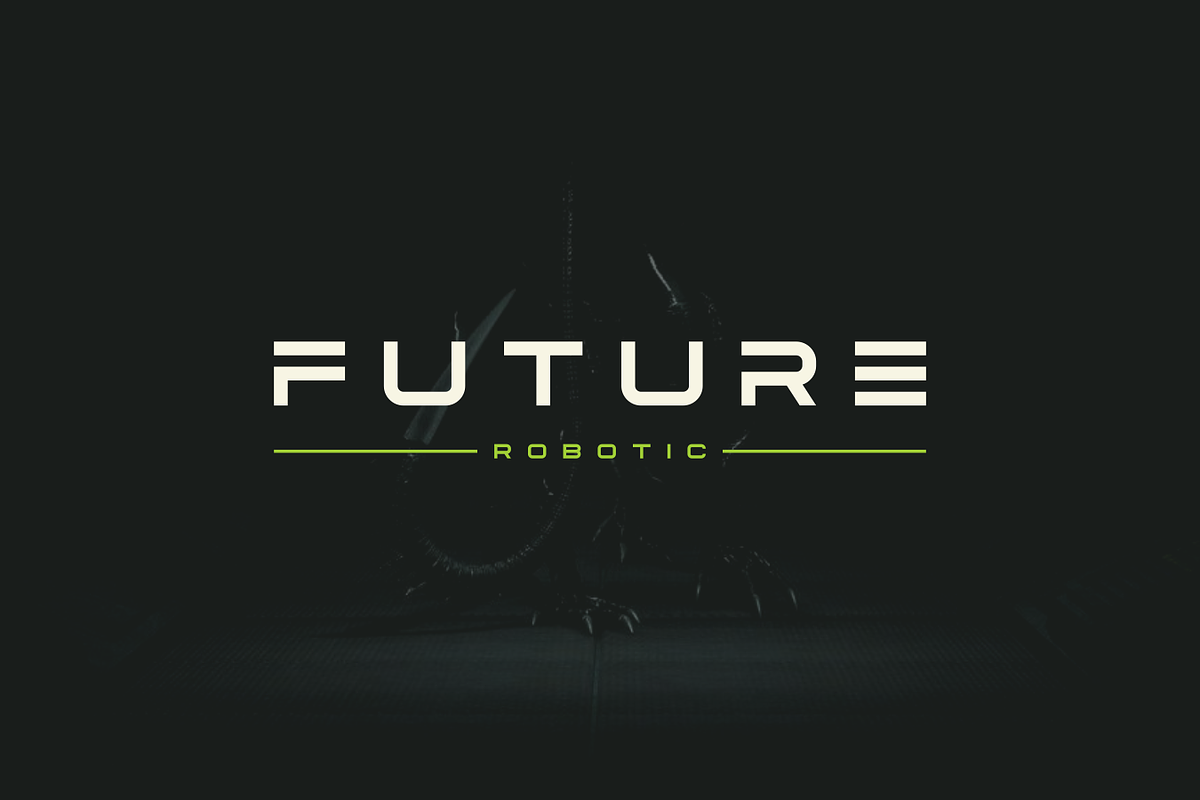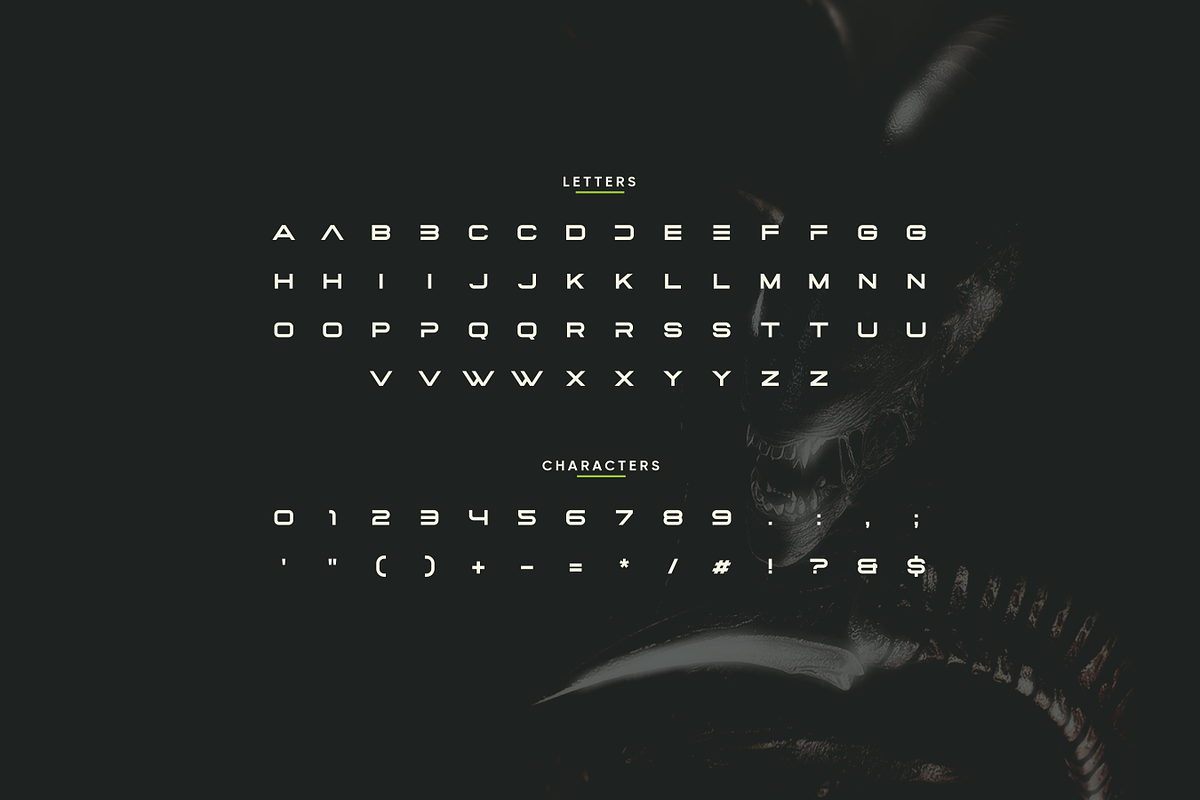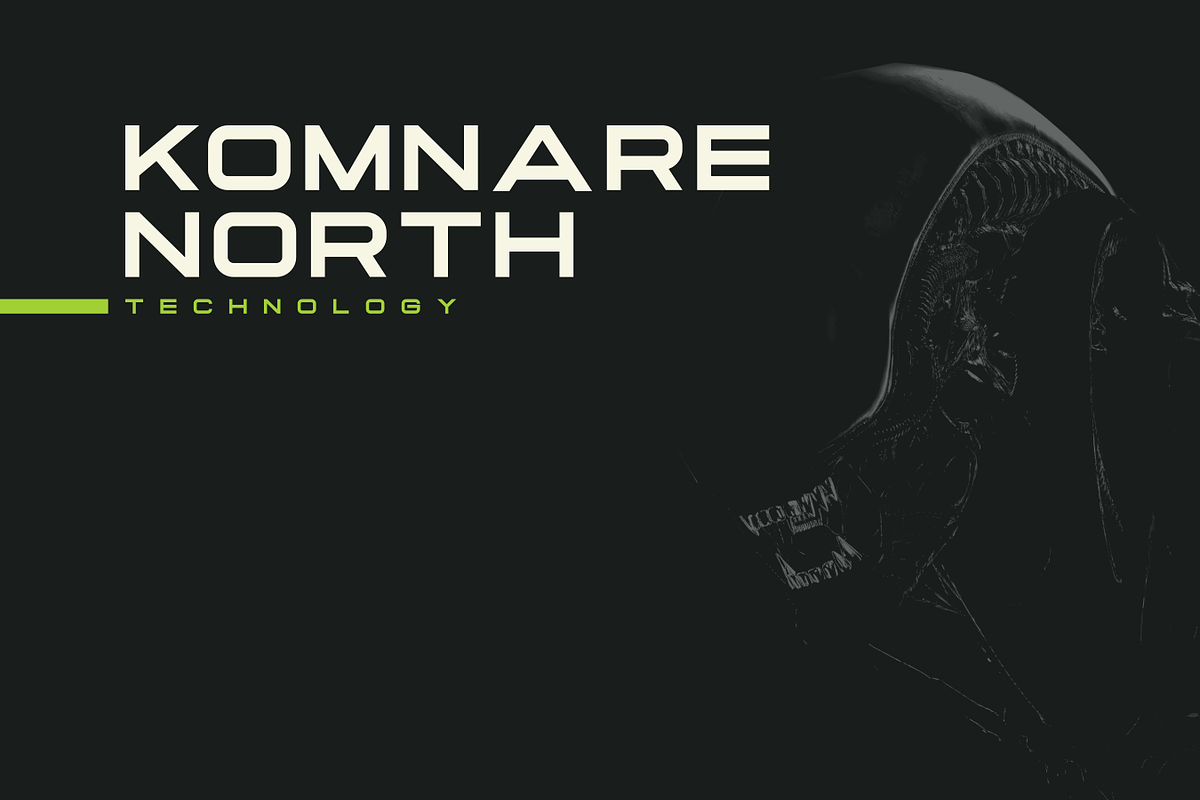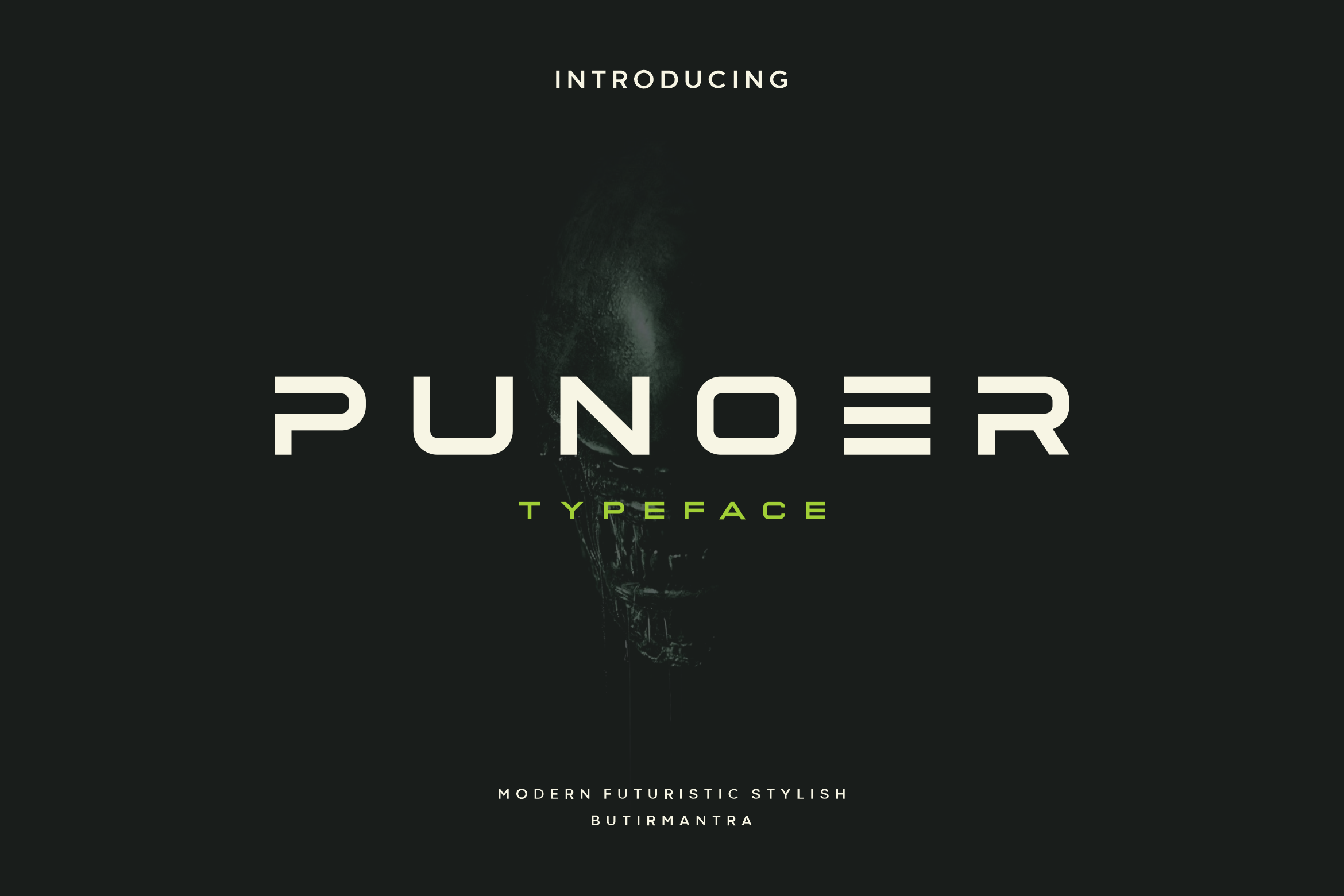
Punoer - Modern Futuristic Typeface
Punoer is a modern font that draws inspiration from future cyberspace with spaceage technology geometric shapes, creating a striking visual style perfect for sci-fi, technology, and game designs. Punoer comes with a unique style in lowercase whether for creating space themed event posters, logos, headlines or social media page covers, the minimalist yet futuristic design will launch your designs into the stratosphere. Don't wait, hurry up and upgrade your design and create something different!